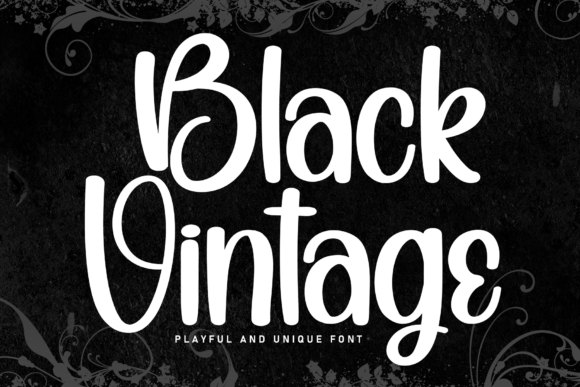
The Magic of Black Vintage Font: A Designer’s New Best Friend
I still remember the time I was working on a project for a client’s wedding invitation suite. I had the design concept all sorted out, but I was stuck on finding the perfect font. The client wanted something that felt elegant, yet playful; something that would make their special day announcements stand out. That’s when I stumbled upon the Black Vintage Font ✨. It was love at first sight! The natural, handwritten style and unique flair of this font made it an instant winner for my project.
An Honest Review of Black Vintage Font
What I Love About Black Vintage Font
- ✨ Sweet and Friendly Style: Black Vintage Font has a warm, inviting feel that makes it perfect for a wide range of design projects, from wedding invitations to branding and packaging.
- ✅ Highly Versatile: Whether you’re designing for digital or print, this font adapts beautifully, making it a great addition to any designer’s toolkit.
- 💫 Unique Character: The font’s natural, handwritten style gives it a distinct personality that can help your designs stand out.
- ⚠️ Legibility at Small Sizes: Like many handwritten fonts, Black Vintage can get a bit tricky to read at very small sizes. It’s best used at larger sizes where its unique character can shine.
- ⚠️ Overuse: Because it’s so charming, it’s easy to overuse this font in a design. Make sure to balance it with some simpler fonts to keep your design clear and readable.
Exploring OpenType Features, Glyphs, and Stylistic Alternates
The Story Behind Black Vintage Font
While the exact origins of Black Vintage Font might be shrouded in mystery, it’s easy to imagine a designer with a passion for vintage typography and handwriting crafting this font. Perhaps they were inspired by old letters, vintage advertisements, or the natural flow of handwritten text. Whatever the inspiration, Black Vintage Font captures a sense of nostalgia and warmth that’s hard to find in digital fonts.
Q: Is Black Vintage Font suitable for body text?
A: While Black Vintage Font is beautiful, it’s best used for headings or short paragraphs due to its decorative nature. For longer body text, a more straightforward font is usually more readable.
Q: Does Black Vintage Font include any special characters or glyphs?
A: Yes, Black Vintage Font comes with a range of special characters and glyphs, allowing for a high degree of customization and creativity in your designs.
Q: Is Black Vintage Font easy to read?
A: Black Vintage Font is generally easy to read, especially at larger sizes. However, as with any decorative font, readability can decrease at very small sizes or in lengthy texts.